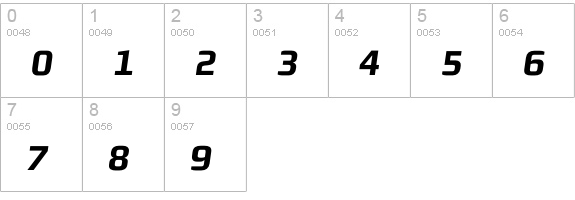
MorganSnCaps Bold Oblique Font Details
MorganSnCaps Bold Oblique is a strong, high-contrast, italic variant in the MorganSnCaps typeface family \xE2\x80\x94 well suited to headlines, attention-grabbing titles, and strong calls-to-action.
MorganSnCaps Bold Oblique font is a striking and dynamic typeface that exudes confidence and sophistication. With its bold weight and slanted design, this font is perfect for making a statement in headlines, titles, and branding materials. The sharp edges and unique angles of each letter create a modern and edgy look that demands attention. What's even better is that MorganSnCaps Bold Oblique font is available for free download at FontsMarket.com. Whether you're a designer looking to add a touch of boldness to your projects or a business owner in need of a standout font for your marketing materials, this font is sure to impress. Don't miss out on the opportunity to enhance your designs with this stylish and versatile typeface – download it for free today!